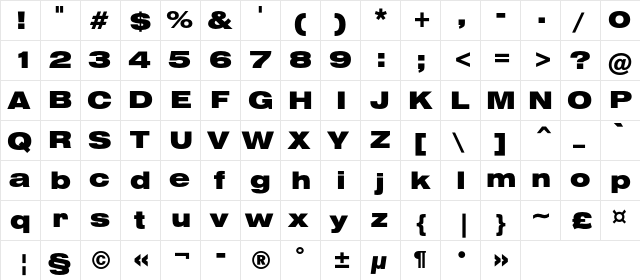
HeliosExtBlackC Regular
Design Context for HeliosExtBlackC Typeface
HeliosExtBlackC takes a measured approach to typography — its balanced proportions and neutral character make it a reliable workhorse for both digital and print work.